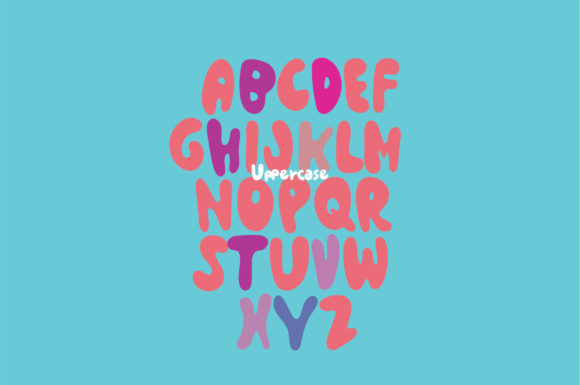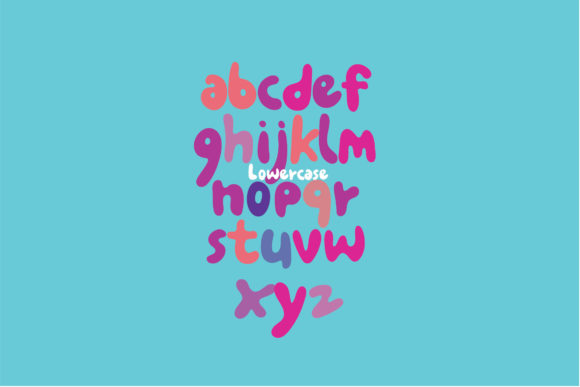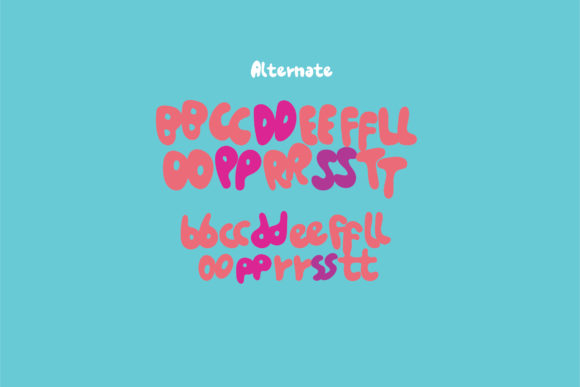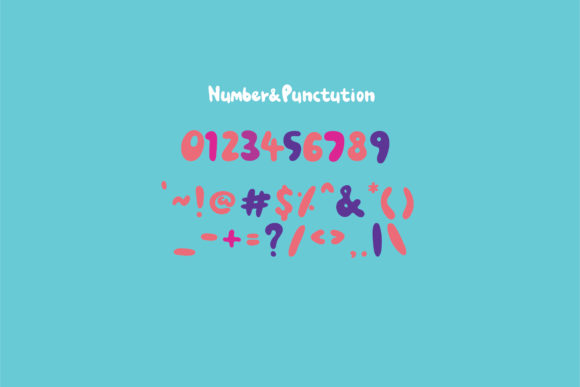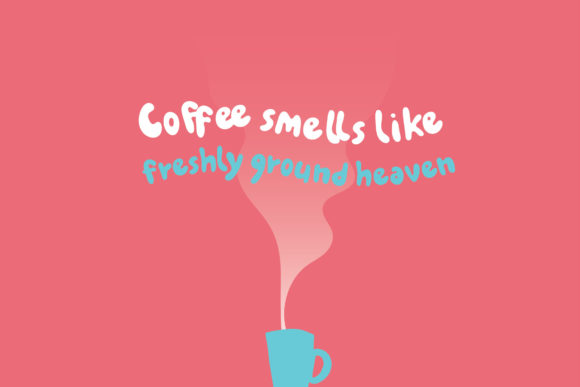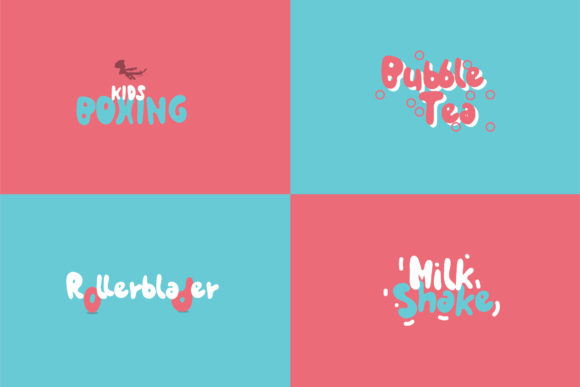
The Perfect Font for a Big Impact
Do you remember the first time you stumbled upon a font that made your design project come alive? Maybe it was a quirky serif, a bold sans-serif, or a playful script that added that extra oomph to your layout. For designers, finding the right font can be a game-changer – and today, we’re excited to introduce you to the charming Big Boy Font.
Big Boy is more than just a cute and chunky display font – it’s a mood-booster, a conversation starter, and a design solution all rolled into one. This friendly, fun, and fresh font is perfect for anyone looking to add a little personality to their projects, from social media graphics to event posters and beyond. Whether you’re a seasoned designer or a creative newbie, Big Boy Font is sure to bring a smile to your face and a sparkle to your designs.
Big Boy Font Key Features
- Unique Characteristics: The font features a bold, playful design with rounded edges and a friendly feel, making it ideal for use in logos, headings, and titles in a variety of contexts, including children’s products, entertainment, and food branding.
Designer Review: Big Boy Font
Overall, I think the Big Boy Font is a fun and playful addition to any design project. It’s a great choice for creating eye-catching headings and titles that grab the user’s attention. ✨ I love the bold and cheerful personality of this font, which makes it perfect for use in children’s books, advertising, and other projects that need a lighthearted touch.
One of the things that stands out about Big Boy Font is its wide range of weights and styles. This makes it super easy to use in a variety of contexts, from formal to informal. ✨ You can create a cohesive look by using the same font throughout a project, or mix and match different weights to add some visual interest. The font also includes a range of ornaments and swashes that can add a touch of whimsy to your designs.
- ⚠️ The font may be a bit too playful for some projects, and could potentially come across as unprofessional or immature.
- ⚠️ The wide range of weights and styles can make it difficult to choose the perfect font for your project. It’s easy to get overwhelmed by the options!
Overall, I think the Big Boy Font is a great choice for designers who want to add a bit of fun and personality to their projects. While it may not be suitable for every project, it’s definitely a valuable addition to any designer’s toolkit. ✨
Big Boy Font is commonly used for creating bold, eye-catching headlines and titles. It’s also used in branding and advertising materials, such as logos, posters, and social media graphics. Additionally, it can be used to add a vintage or retro touch to designs.
To get the most out of Big Boy Font, use it sparingly to add emphasis and contrast to your designs. You can also pair it with other fonts to create a visually appealing combination. Experiment with different font sizes, colors, and styles to achieve the desired effect.
What are the technical details of the Big Boy Font?
The Big Boy Font is a TrueType font, which means it uses the TrueType font format. It is a scalable font, which means it can be resized without losing quality. The font family includes several weights, including light, regular, medium, bold, and extra bold, as well as italic and bold-italic versions. The font supports a wide range of languages, including English, Spanish, French, German, Italian, and many others. The font also includes a range of OpenType features, including ligatures, swashes, and stylistic sets.